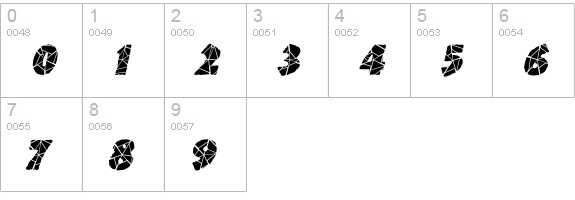
DinosuariaCracked Italic is a distinctive, italic variant in the DinosuariaCracked typeface family \xE2\x80\x94 well suited to design and typography projects.
Introducing DinosuariaCracked Italic font - a bold and dynamic typeface that combines ancient charm with a modern twist. This unique font features cracked detailing that adds a rugged and edgy feel to your designs. Perfect for adding a touch of prehistoric elegance to your projects, DinosuariaCracked Italic font is sure to make a statement. Best of all, this stunning font is available for free download exclusively at FontsMarket.com! Whether you're working on a poster, logo, or any other design project, DinosuariaCracked Italic font will bring a sense of adventure and creativity to your work. Don't miss out on this exciting opportunity to elevate your designs with this eye-catching font. Download it today and let your creativity run wild!